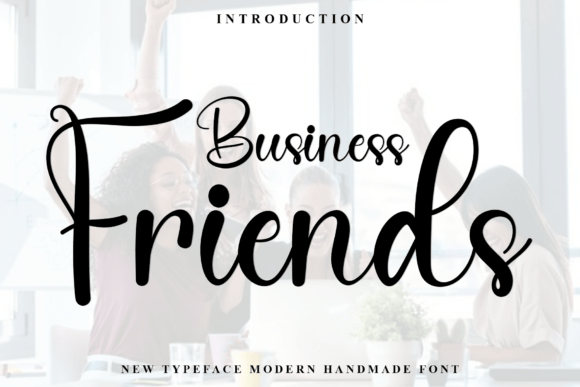
Introducing Business Friends Font: The Perfect Blend of Professionalism and Organic Energy
In the world of typography, a font can make or break a brand’s identity. For businesses looking to make a statement, a font that exudes confidence, creativity, and professionalism is essential. This is where Business Friends Font comes in – a bold and expressive modern handmade font that strikes the perfect balance between structure and organic energy.
What Makes Business Friends Font Stand Out?
Business Friends Font boasts heavy, confident strokes with a natural, slanted axis and fluid connections. Its thick stems and smooth, sweeping curves give the text a substantial visual weight, making it perfect for grabbing attention. The typeface features a unique blend of modernity and artisanal craftsmanship, making it an ideal choice for businesses looking to stand out in a crowded market.
Key Features of Business Friends Font
• Bold and Expressive: Business Friends Font is designed to make a statement. Its bold strokes and confident lines ensure that your brand’s message is conveyed with authority and conviction.
• Modern Handmade: This font is a true blend of modernity and handmade craftsmanship. Its unique character and organic feel make it perfect for creative businesses and startups.
• Professional Structure: Despite its organic feel, Business Friends Font maintains a professional structure that ensures legibility and clarity.
• Organic Energy: The font’s natural, slanted axis and fluid connections give it an energetic and dynamic feel that’s perfect for brands looking to convey creativity and innovation.
Use Cases for Business Friends Font
Business Friends Font is incredibly versatile and can be used in a variety of contexts. Here are some of the most effective use cases:
• Collaborative Business Branding: This font is perfect for businesses that value collaboration and partnership. Its bold and confident strokes convey a sense of strength and reliability.
• Modern Creative Agency Identities: Business Friends Font is a great fit for creative agencies looking to convey innovation and creativity.
• Professional Social Media Headers: The font’s bold and expressive nature makes it perfect for social media headers, where it can help grab attention and convey a brand’s message.
• Impactful Lifestyle Marketing: For lifestyle brands looking to make a statement, Business Friends Font is an excellent choice. Its unique blend of modernity and organic feel makes it perfect for conveying a sense of sophistication and elegance.
Why Choose Business Friends Font?
In a world where typography plays a crucial role in brand identity, Business Friends Font stands out as a unique and versatile option. Here are some reasons why designers and crafters should consider this font for their next project:
• Unique Character: Business Friends Font has a unique character that sets it apart from more traditional fonts.
• Highly Legible: Despite its bold nature, this font is highly legible, making it perfect for use in a variety of contexts.
• Customizable: As a handmade font, Business Friends Font can be customized to fit a brand’s specific needs.
• Timeless Appeal: This font’s classic and modern elements ensure that it will remain timeless and relevant for years to come.
Business Friends Font is a bold and expressive modern handmade font that’s perfect for businesses looking to make a statement. Its unique blend of professionalism and organic energy makes it an ideal choice for collaborative business branding, modern creative agency identities, professional social media headers, and impactful lifestyle marketing. With its highly legible and customizable nature, this font is sure to become a favorite among designers and crafters.
Whether you’re looking to create a bold brand identity or simply want to add some personality to your design projects, Business Friends Font is an excellent choice. So why not give it a try and see how this amazing font can elevate your designs?